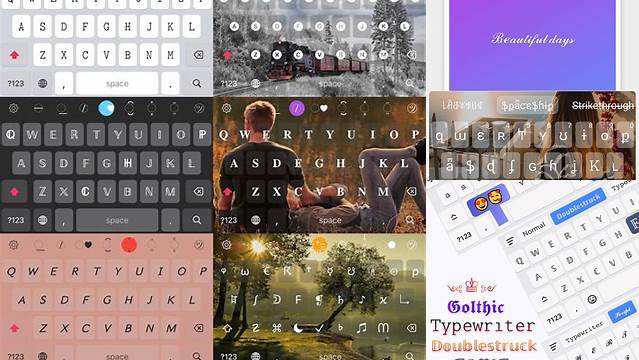
Free Keyboard Fonts For Android: Personalize Your Typing!
Hey guys! Ever feel like your phone's keyboard is just a little bit… boring? Like it's missing that certain je ne sais quoi? Well, you're not alone! The default keyboard font on Android can be, let's face it, a bit bland. But the good news is, you don't have to be stuck with it! There's a whole world of keyboard fonts out there just waiting to be explored, and the best part? Many of them are absolutely free! In this article, we're diving deep into the wonderful world of Android keyboard customization, showing you how to transform your typing experience from drab to fab with just a few taps. We'll cover everything from finding the coolest fonts to installing them and even troubleshooting any issues you might encounter. So, buckle up, font fanatics! It's time to give your keyboard a serious makeover!
Why Bother Changing Your Keyboard Font?
Okay, okay, I hear you. "Why should I bother changing my keyboard font? It works fine as it is!" And you're not wrong – the default keyboard does work. But think about it: you use your keyboard constantly. For texting, emailing, social media, searching the web… it's one of the primary ways you interact with your phone. So, why not make that interaction a little more enjoyable? Customizing your keyboard font is a super simple way to inject a bit of your personality into your phone. It's like giving your digital voice a unique signature. Imagine typing out a message in a playful, handwritten-style font, or sending an email in a sleek, modern typeface. It's a subtle change, but it can make a big difference in how you feel about using your phone. Beyond the aesthetic appeal, choosing the right font can also improve readability. If you struggle with the default font, switching to something clearer and easier to read can reduce eye strain and make typing more comfortable, especially for those long emails or late-night chats. This is particularly important if you have any visual impairments or spend a significant amount of time typing on your phone. Furthermore, changing your keyboard font is a fantastic way to stand out from the crowd. In a world where everyone has the same phone and the same apps, personalization is key. A unique font can be a subtle but effective way to express your individuality and make your phone truly yours. Think of it as the digital equivalent of choosing a cool phone case or setting a custom ringtone. It's a small detail that can have a big impact. So, whether you're looking to add some flair to your phone, improve readability, or simply express yourself, changing your keyboard font is a worthwhile endeavor. And with so many free options available, there's really no reason not to give it a try!
Finding Free Fonts for Your Android Keyboard
Alright, you're convinced! You're ready to ditch the default font and embrace a world of typographic possibilities. But where do you even begin? Finding free fonts for your Android keyboard might seem daunting, but trust me, it's easier than you think. The key is knowing where to look and what to look for. First up, let's talk about keyboard apps. Many popular keyboard apps, like Gboard, SwiftKey, and Grammarly Keyboard, come with a built-in selection of fonts. These fonts are usually free to use and can be easily applied within the app's settings. This is often the simplest and most convenient way to change your keyboard font, as you don't need to download any external files or use any complicated tools. To explore the font options within your keyboard app, simply open the app's settings (usually accessible from within the app itself or through your phone's settings menu) and look for a "Fonts" or "Appearance" section. From there, you should be able to browse the available fonts and preview how they look on your keyboard. If you're looking for a wider variety of fonts, you can also check out the Google Play Store. There are tons of apps specifically designed to provide custom fonts for your Android device. Some of these apps offer a curated selection of fonts that are compatible with various keyboard apps, while others function as standalone keyboards with their own font libraries. When searching for font apps in the Play Store, be sure to read reviews and check ratings before downloading anything. You want to make sure you're installing a reputable app that won't compromise your phone's security or performance. Look for apps with positive reviews and a high rating, and avoid apps that ask for unnecessary permissions. Another great resource for free fonts is the internet itself! There are numerous websites that offer free fonts for personal use. Some popular websites include Google Fonts, Dafont, and Font Squirrel. These websites typically offer a wide range of fonts in various styles, from classic serif fonts to modern sans-serif fonts to quirky display fonts. When downloading fonts from the internet, it's important to ensure that they are compatible with your Android device and keyboard app. Most fonts are available in the TTF (TrueType Font) or OTF (OpenType Font) format, which are widely supported by Android devices. However, some keyboard apps may have specific font requirements, so be sure to check the app's documentation before downloading any fonts. Also, pay attention to the font's license. Most free fonts are licensed for personal use, which means you can use them for your own projects but not for commercial purposes. If you plan to use a font for commercial purposes, you'll need to find a font with a commercial license or purchase a license from the font's creator. In summary, finding free fonts for your Android keyboard is a breeze once you know where to look. Explore the font options within your keyboard app, browse the Play Store for font apps, and check out online font repositories. With a little bit of searching, you'll be sure to find the perfect font to match your style and personality.
Top Free Font Recommendations
Alright, guys, let's get to the fun part! You're ready to deck out your keyboard with a fresh new font, but with so many options out there, where do you even start? Don't worry, I've got you covered. Here are some of my top free font recommendations for Android keyboards, covering a range of styles to suit every taste:
- For the minimalist: If you're a fan of clean, simple designs, a sans-serif font is the way to go. These fonts are characterized by their lack of serifs (the little decorative strokes at the ends of letters) and their modern, uncluttered look. Some excellent free sans-serif fonts include:
- Roboto: This is a classic Android font that's both legible and stylish. It's a great all-around choice for any keyboard.
- Open Sans: Another popular sans-serif font that's known for its readability and versatility.
- Lato: A slightly more rounded sans-serif font that's friendly and approachable.
- For the traditionalist: If you prefer a more classic and elegant look, a serif font might be more your style. Serif fonts have serifs, which give them a more formal and traditional appearance. Some great free serif fonts to consider include:
- Roboto Serif: A serif version of the popular Roboto font, offering a modern twist on a classic style.
- Oswald: A bold and condensed serif font that's perfect for headlines and titles.
- Playfair Display: A high-contrast serif font that's elegant and sophisticated.
- For the playful: If you want to add a touch of personality and fun to your keyboard, a display font is a great choice. Display fonts are designed to be eye-catching and unique, and they come in a wide variety of styles. Some fun free display fonts include:
- Pacifico: A handwritten-style font that's casual and friendly.
- Permanent Marker: A font that looks like it was written with a permanent marker, perfect for adding a bold and edgy touch.
- Amatic SC: A condensed sans-serif font that's tall and quirky, ideal for adding a playful touch.
- For the calligrapher: If you love the look of calligraphy, you can find free fonts that mimic the beautiful strokes of handwritten lettering. Some stunning free calligraphy fonts include:
- Great Vibes: A flowing and elegant calligraphy font that's perfect for special occasions.
Conclusion: Express Yourself with Free Keyboard Fonts!
So there you have it, folks! A complete guide to finding and using free keyboard fonts on your Android device. As you've seen, customizing your keyboard font is a simple yet effective way to personalize your phone and express your unique style. Whether you're looking for a clean and modern font, a classic and elegant font, or a playful and quirky font, there's a whole world of free options out there just waiting to be discovered. We've covered everything from why you should consider changing your keyboard font to where to find free fonts, how to install and apply them, and how to troubleshoot common issues. We've also shared some of our top free font recommendations to get you started. Now it's your turn to dive in and start exploring! Don't be afraid to experiment with different fonts and find the one that truly speaks to you. Remember, your keyboard is one of the primary ways you interact with your phone, so why not make that interaction a little more enjoyable? By choosing a font that you love, you can add a touch of personality to your typing experience and make your phone feel more like you. So go ahead, unleash your inner typographer and transform your keyboard from drab to fab with a free font! Happy typing!